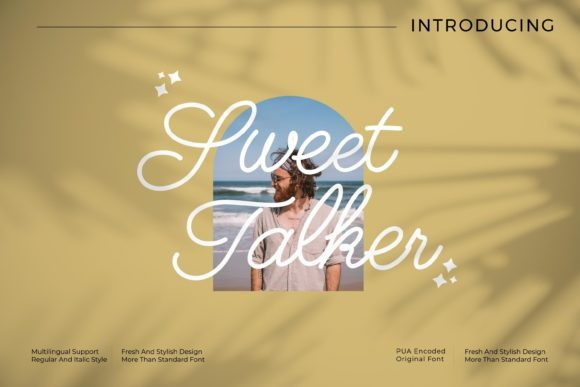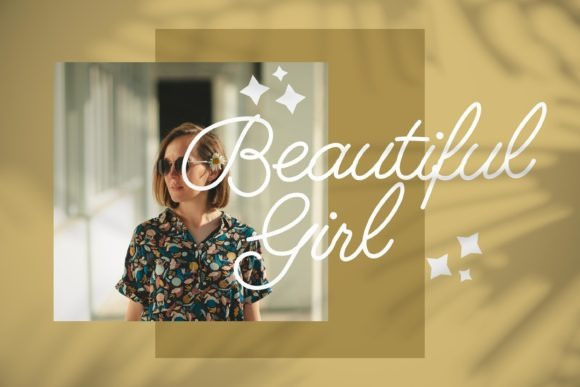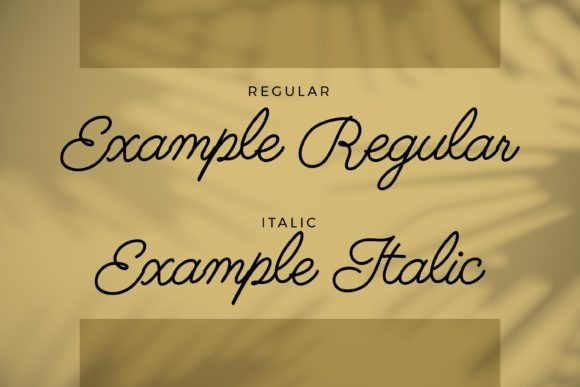
Sweet Talker Font
Sweet Talker is a lovely script font featuring charming, playful characters that seem to dance along the baseline. Add this font to your most creative ideas, and notice how it makes them stand out!